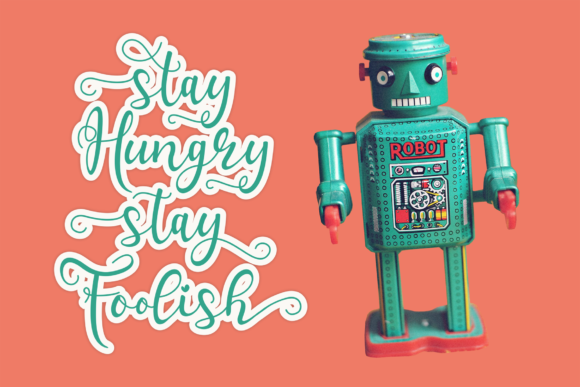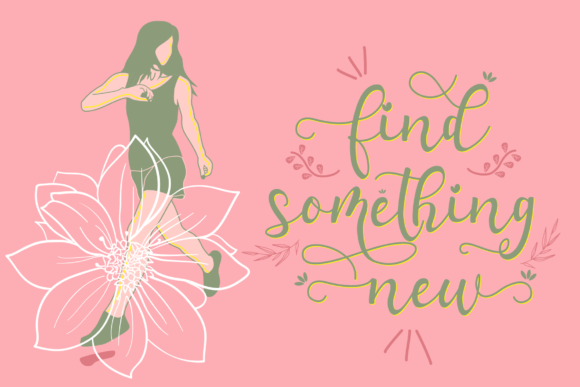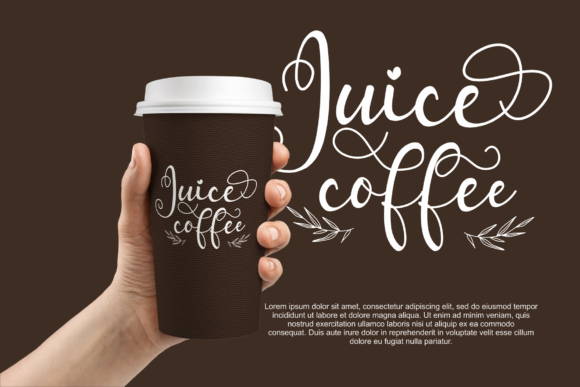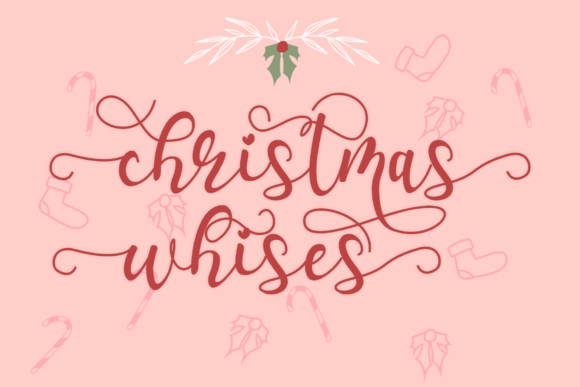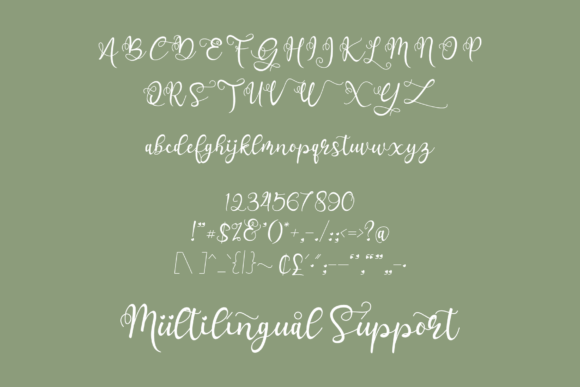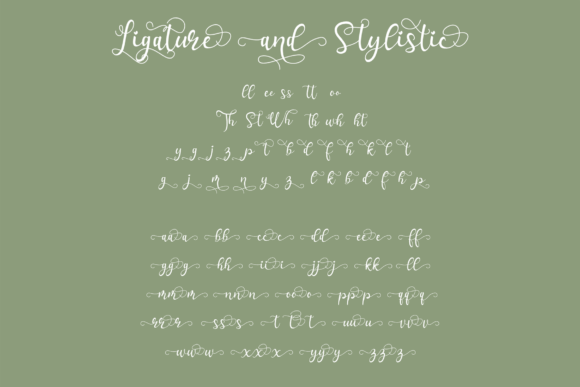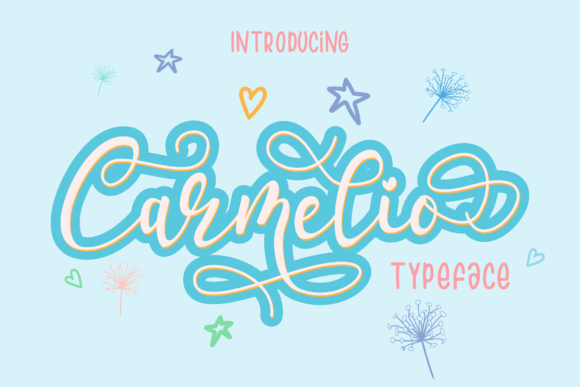
Carmelio Font: Elevate Your Designs with a Fun and Beautiful Script Font
Are you looking for a font that can add a touch of elegance and playfulness to your designs? Look no further than Carmelio, a stunning script font that is sure to inspire your creativity. With its beautiful swashes and flowing lines, Carmelio is the perfect choice for designers and crafters who want to take their work to the next level.
The Inspiration Behind Carmelio
Carmelio is a script font that is designed to evoke a sense of fun and sophistication. Its unique blend of classic and modern elements makes it perfect for a wide range of design projects, from wedding invitations and branding materials to social media graphics and more. Whether you’re a professional designer or a crafty DIY enthusiast, Carmelio is sure to become a favorite in your font collection.
What Makes Carmelio So Special?
So, what sets Carmelio apart from other script fonts on the market? Here are just a few features that make it truly special:
- Beautiful Swashes: Carmelio’s swashes are what truly make it shine. With a range of different swash options to choose from, you can customize your text to fit your design style and add a touch of elegance to your work.
- Fun and Playful: Despite its elegant appearance, Carmelio is also a fun and playful font that’s perfect for designs that need a bit of personality. Whether you’re creating a whimsical logo or a festive invitation, Carmelio is up to the task.
- Highly Versatile: Carmelio is a highly versatile font that can be used for a wide range of design projects. Whether you’re working on a professional branding campaign or a personal craft project, Carmelio is a great choice.
How to Use Carmelio in Your Designs
Using Carmelio in your designs is easy. Here are a few tips to get you started:
- Pair it with a Simple Font: For maximum impact, pair Carmelio with a simple font like Arial or Helvetica. This will help your design stay clean and easy to read, while still showcasing the beauty of Carmelio.
- Experiment with Swashes: Don’t be afraid to experiment with Carmelio’s swashes to find the perfect look for your design. You can use them to add a touch of elegance to your text or to create a more playful, whimsical feel.
- Use it for Headlines and Titles: Carmelio is perfect for headlines and titles, where its elegant lines and swashes can really shine. Try using it to add a touch of sophistication to your design.
Design and Crafting Applications for Carmelio
Carmelio is a versatile font that can be used for a wide range of design and crafting applications. Here are a few ideas to get you started:
- Wedding Invitations: Carmelio is a popular choice for wedding invitations, where its elegant lines and swashes can add a touch of romance and sophistication.
- Branding Materials: Whether you’re creating a logo, business card, or brochure, Carmelio is a great choice for branding materials. Its unique blend of classic and modern elements makes it perfect for businesses that want to stand out.
- Social Media Graphics: Carmelio can also be used to create stunning social media graphics, from Facebook posts to Instagram stories. Its playful, whimsical feel makes it perfect for designs that need a bit of personality.
- Crafting Projects: Finally, Carmelio can also be used for a wide range of crafting projects, from scrapbooking to card making. Its elegant lines and swashes make it perfect for adding a touch of sophistication to your handmade creations.
In conclusion, Carmelio is a fun and beautiful script font that is sure to inspire your creativity. With its stunning swashes and elegant lines, it’s perfect for designers and crafters who want to take their work to the next level. Whether you’re creating a professional branding campaign or a personal craft project, Carmelio is a great choice. So why wait? Download Carmelio today and see what amazing designs you can create!